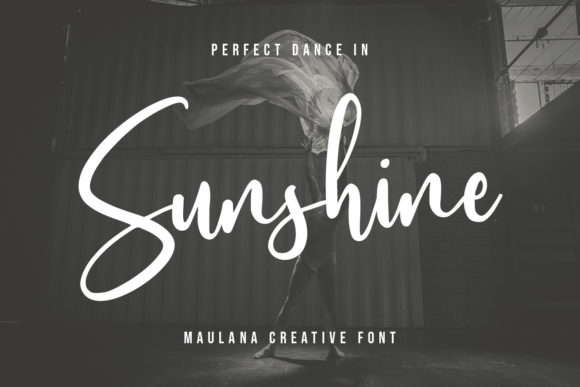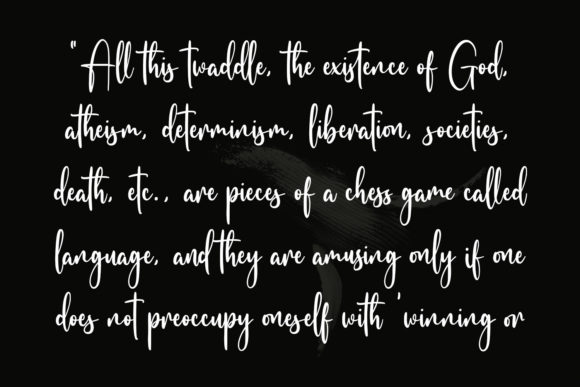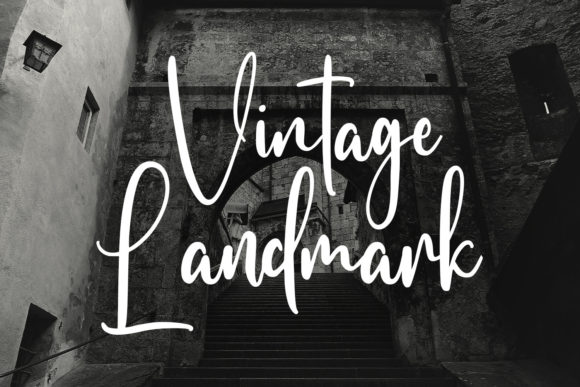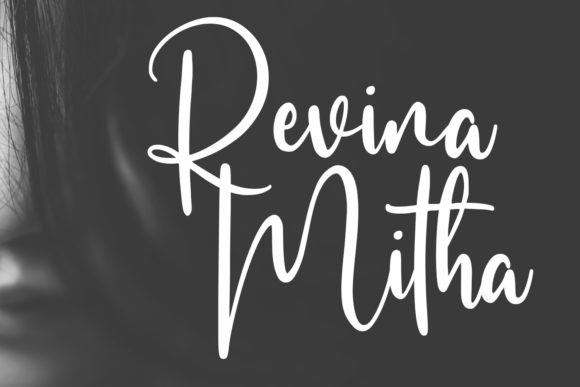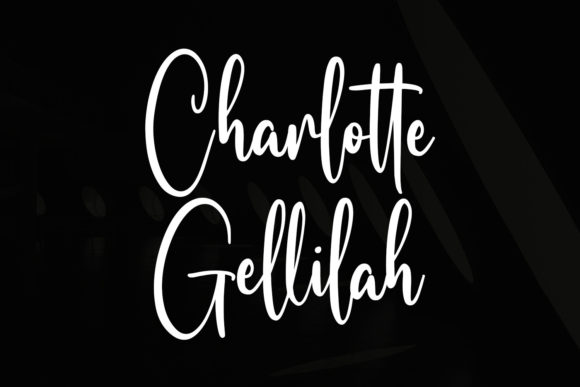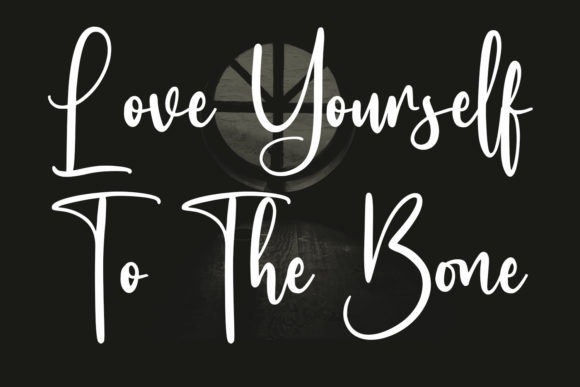
Introduction to Rossa Emilobe Font
Rossa Emilobe is a fancy script font.
It features medium contrast strokes, fun characters, ligatures and alternates It will add a luxury spark to any design project that you wish to create.
Key Features of Rossa Emilobe Font